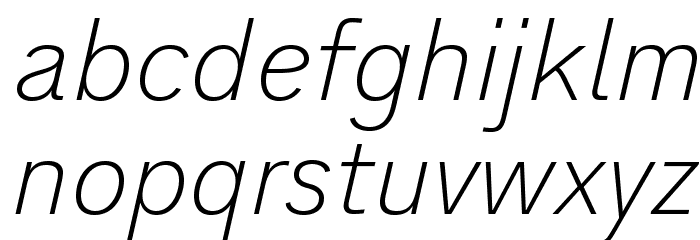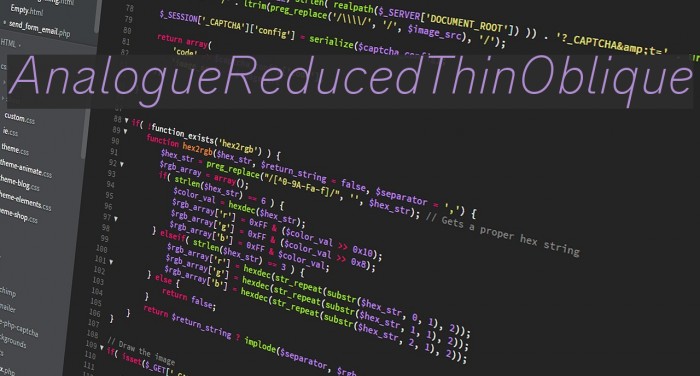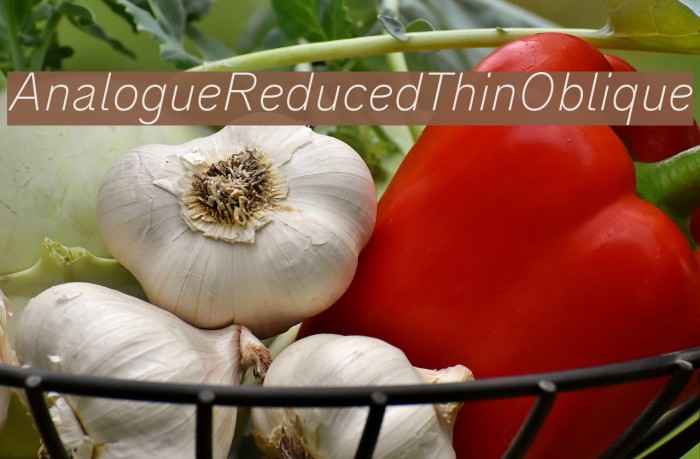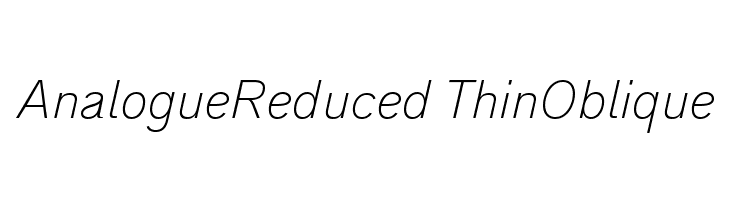
AnalogueReduced-ThinOblique Font
This font features a sleek and modern design with a thin, oblique style. The characters are elegantly slanted, giving a sense of motion and fluidity. The typeface maintains a clean and minimalist aesthetic, with consistent stroke widths that contribute to its refined appearance. The uppercase and lowercase letters are well-proportioned, ensuring readability while maintaining a stylish look. The numerals and special characters are designed to complement the overall aesthetic, making this font versatile for various applications.
A sleek, thin, oblique font with a modern and minimalist design.
- Proposed Projects: Ideal for modern branding, editorial design, fashion magazines, and minimalist websites.